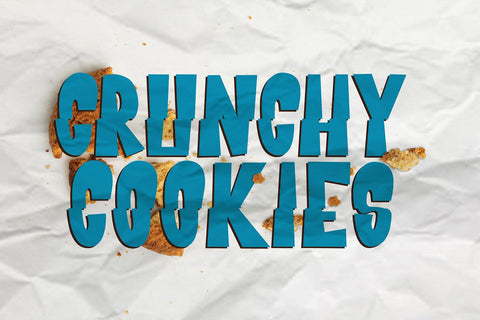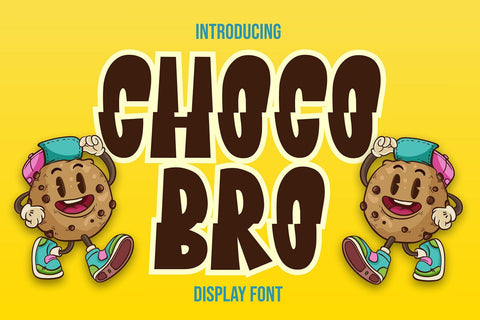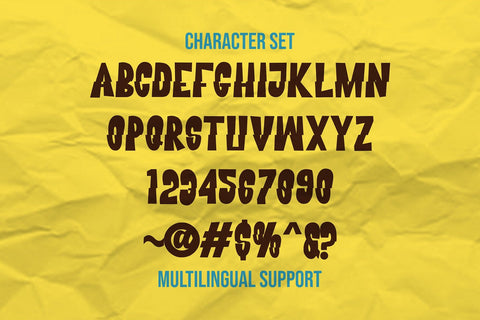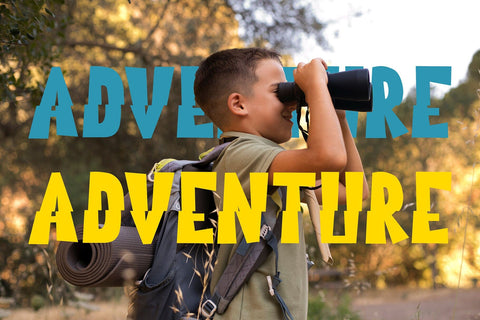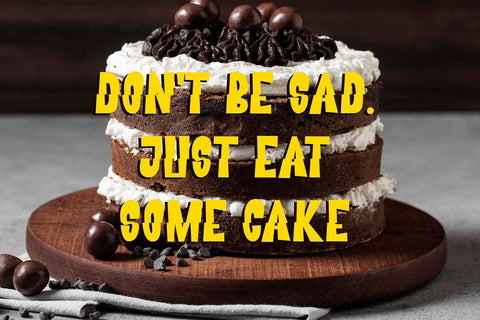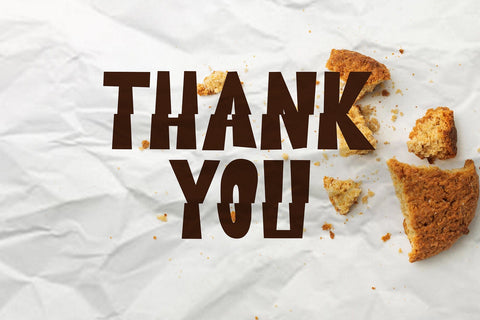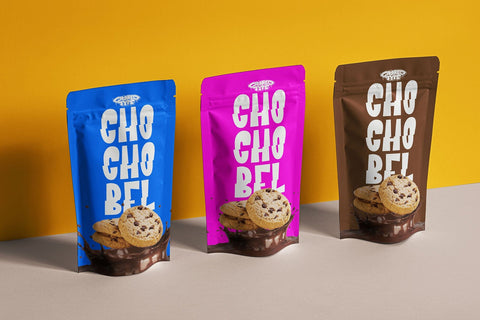
Choco Bro - Trunchated Display Font
"Choco Bro" is a cute and chubby display font characterized by truncated or shortened characters. Fonts with truncated characters often feature letterforms where certain parts are cut off or abbreviated, giving them a unique and distinctive appearance.